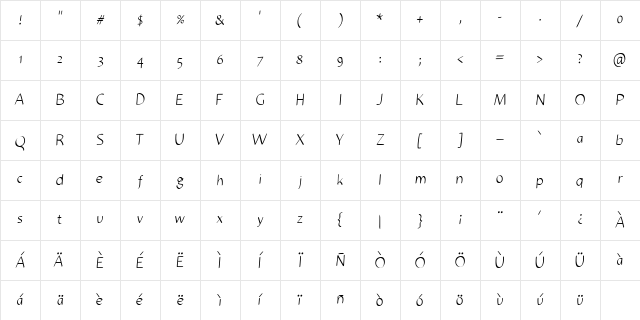
Luis Candara is a composed and adaptable typeface that performs quietly and consistently across a wide range of design contexts.
Pro Tip: Use Luis Candara in both headline and body roles to test its range before committing to a single application.